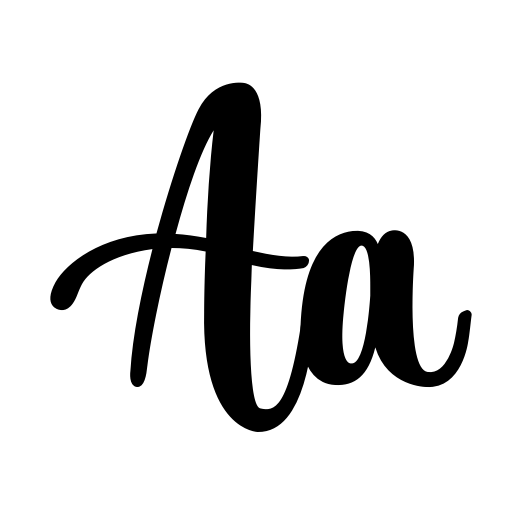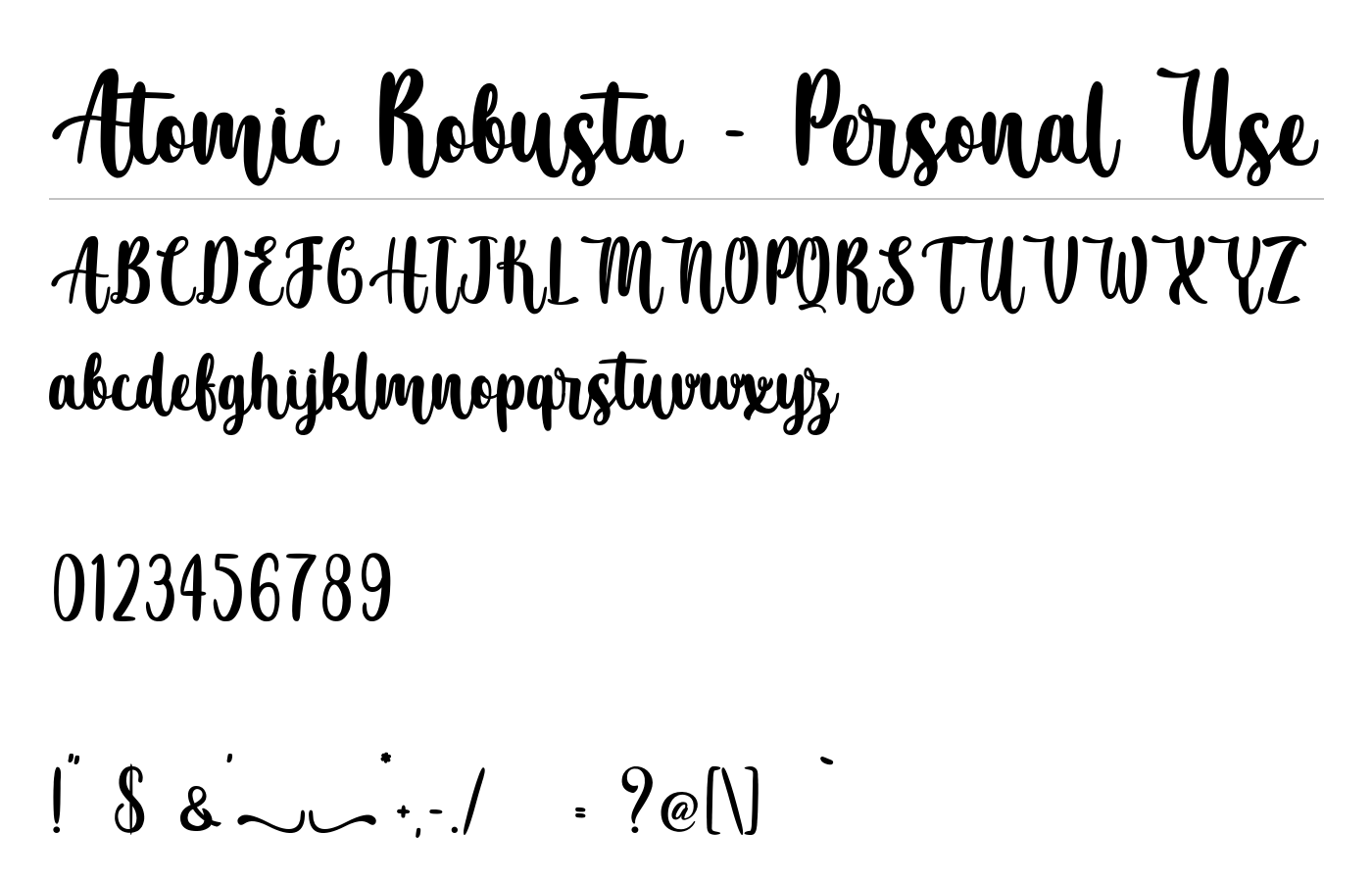
Atomic Robusta is a lively and charming script font featuring smooth, rounded strokes and playful letterforms that bring a warm, handcrafted feel. Its moderately tall x-height and moderately bold weight make it highly readable while retaining an elegant, casual style ideal for creative branding, invitations, and personal projects. This font works wonderfully where a friendly, approachable, yet sophisticated touch is desired, especially in logos, packaging, and social media graphics.